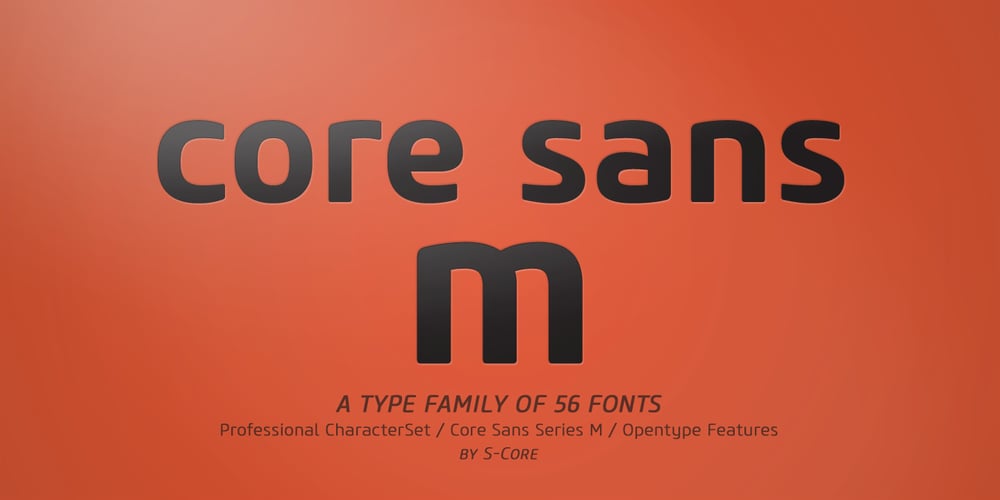
Core Sans M Font Family was designed by Hyun-Seung Lee, Dae-Hoon Hahm, Minjoo Ham and published by S-Core. Core Sans M contains 56 styles and family package options. The Core Sans M Family is a part of the Core Sans Series, such as Core Sans N, Core Sans N Rounded, Core Sans N SC, and Core Sans G. This font family has open and square letter shapes, and overall rounded finishes provide a soft and friendly appearance. Simple and modern shapes with a tall x-height make the text legible and the spaces between individual letter forms are precisely adjusted to create the perfect typesetting. The Core Sans M Family consists of 2 widths (Condensed, Normal), 7 weights (ExtraLight, Light, Regular, Medium, Bold, ExtraBold, Heavy), and Italics for each format. Small Caps versions are also available. It supports WGL4, which provides a wide range of character sets (CE, Greek, Cyrillic and Eastern European characters). Each font includes support for Tabular numbers, Arrows, Box drawings, Geometric shapes, Block elements, Mathematical operators, Miscellaneous symbols and Opentype Features such as Proportional Figures, Numerators, Denominators, Superscript, Scientific Inferiors, Subscript, Fractions and Standard Ligatures. The Core Sans M Family provides both OpenType (.OTF) and TrueType (.TTF) versions in the same package. We highly recommend it for use in books, web pages, screen displays, and so on.